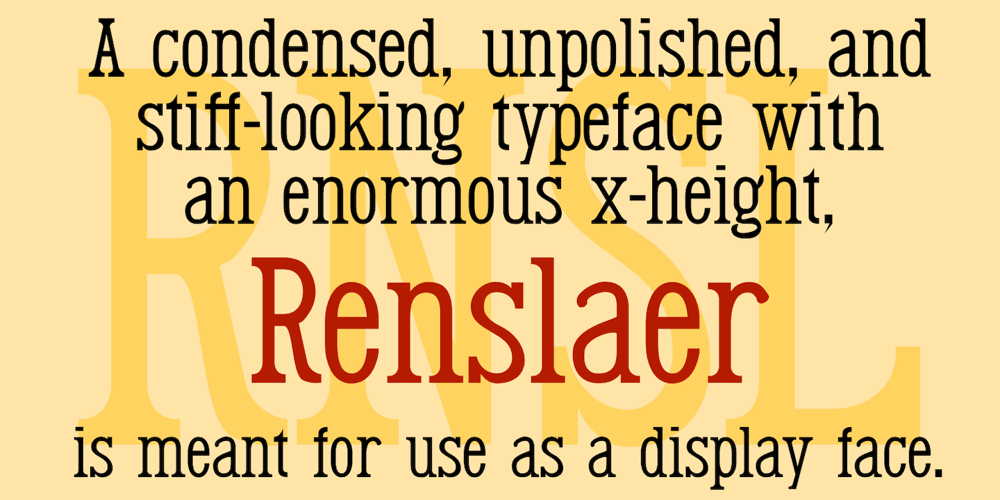
Renslaer Font Family was designed by Robert Schenk and published by Ingrimayne Type. Renslaer contains 2 styles and family package options. A condensed and stiff-looking typeface with an enormous x-height, Renslaer is meant for use as a display face. It has the feel of some of the 19th century display faces, which often had the same sort of unpolished look.